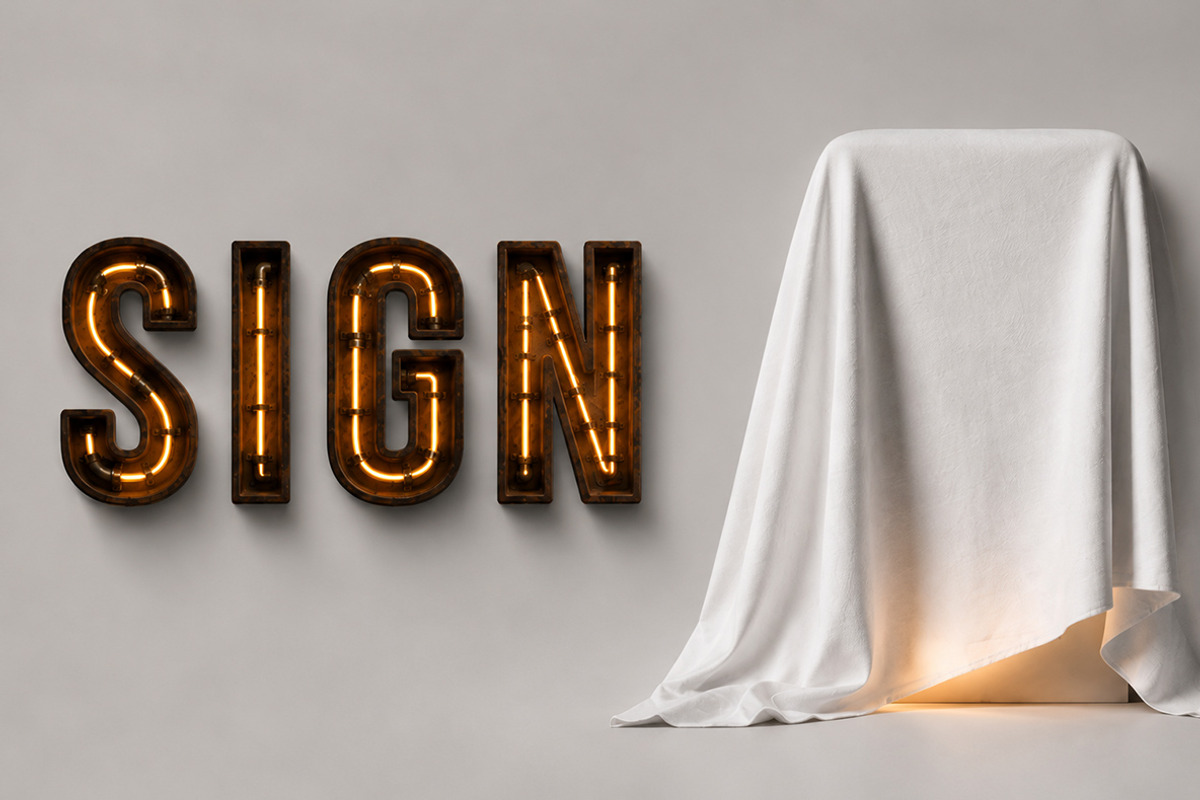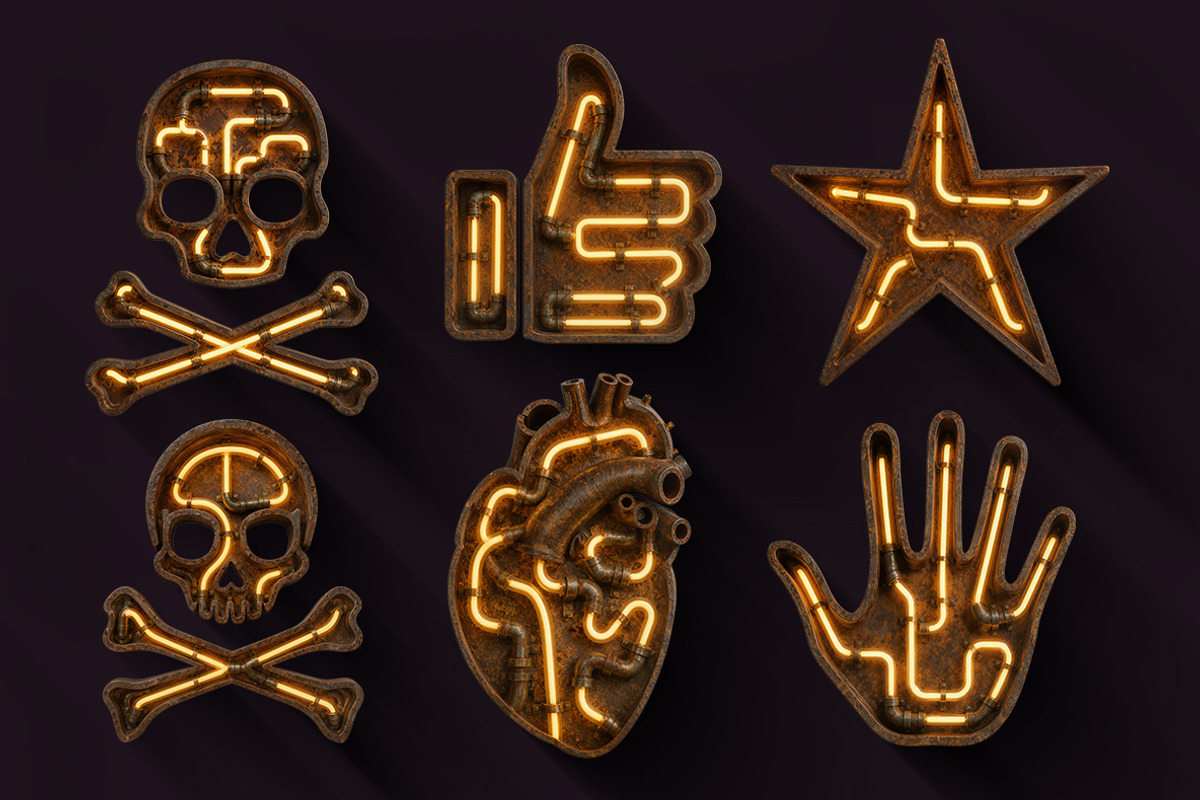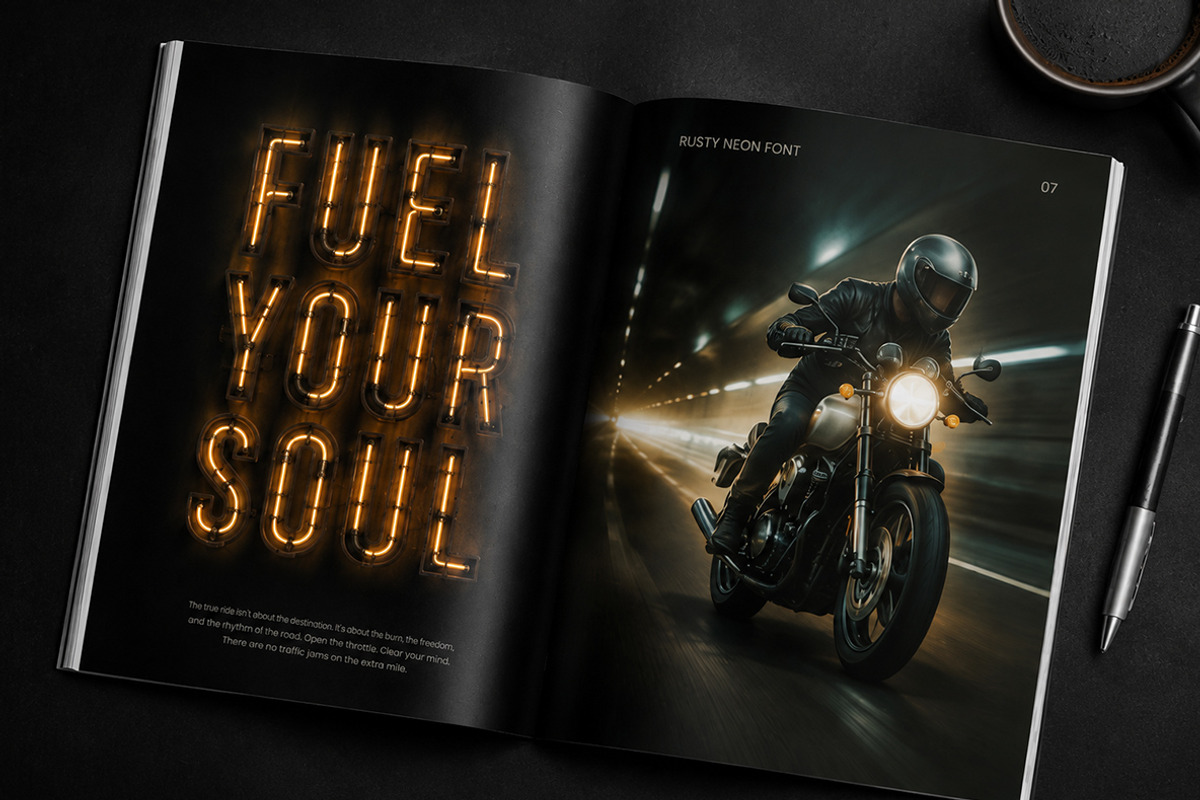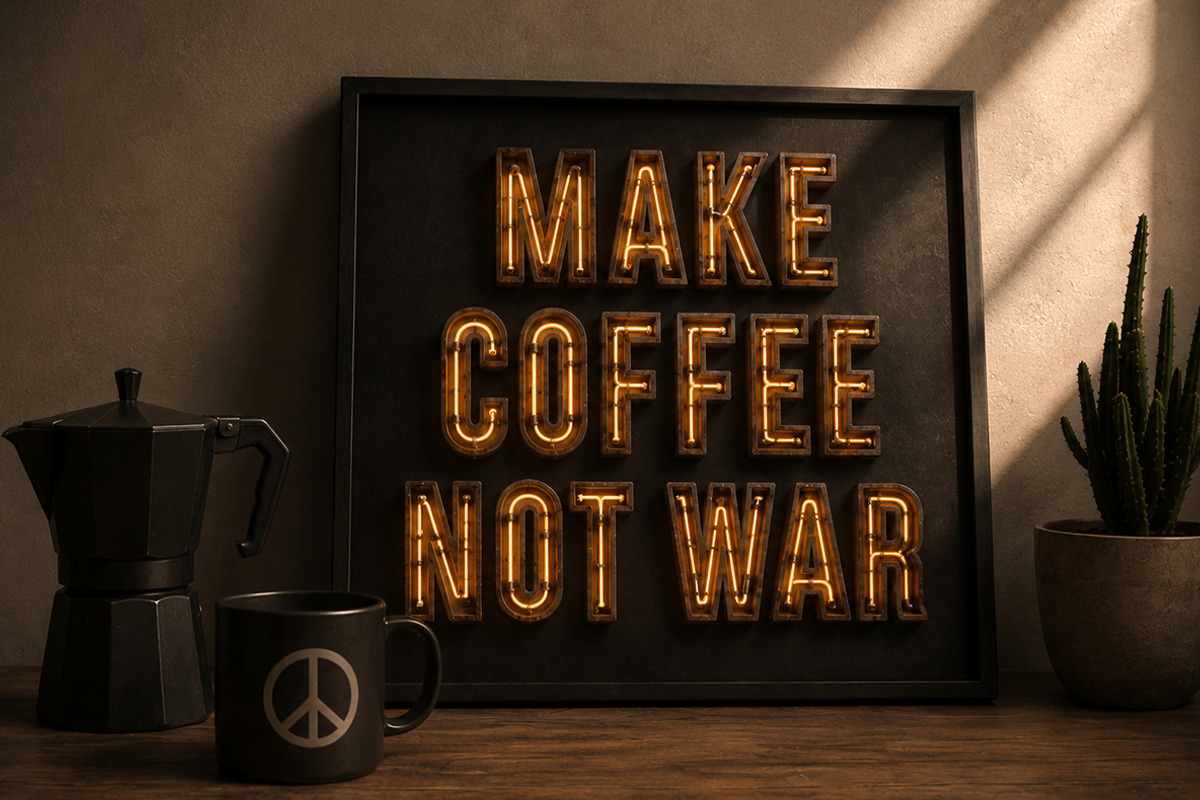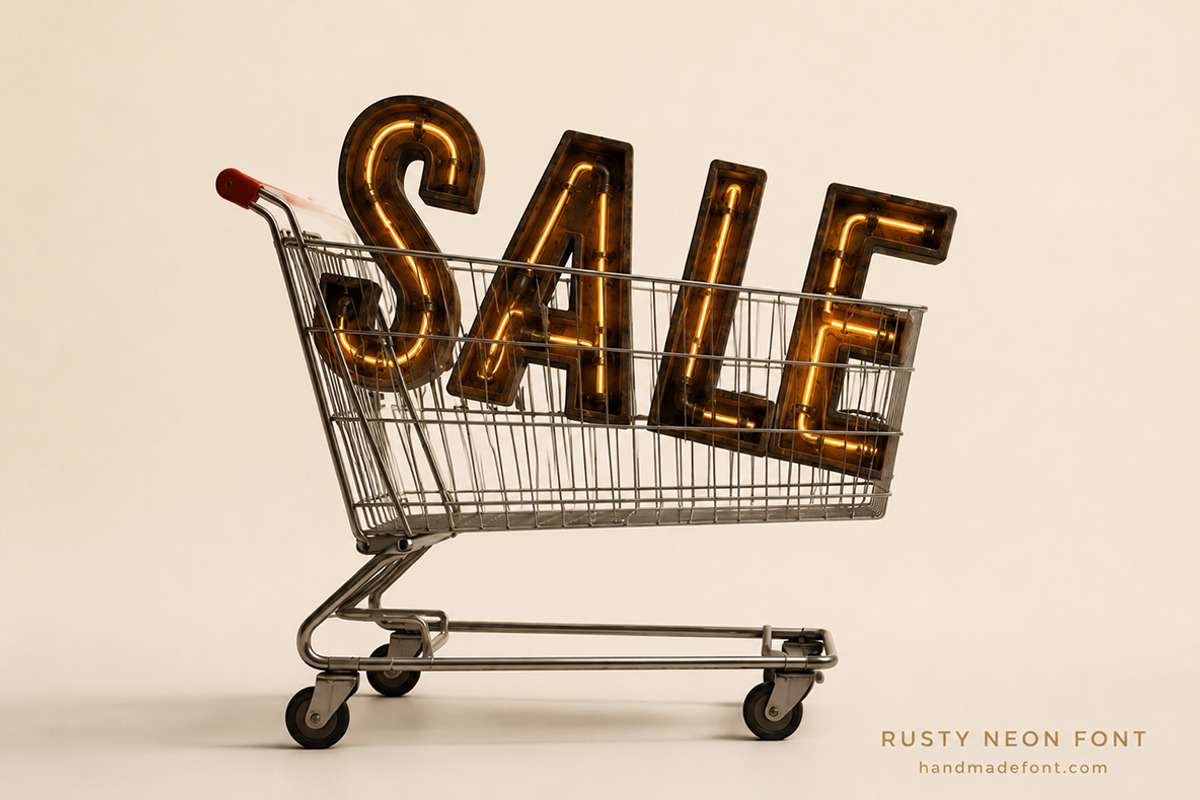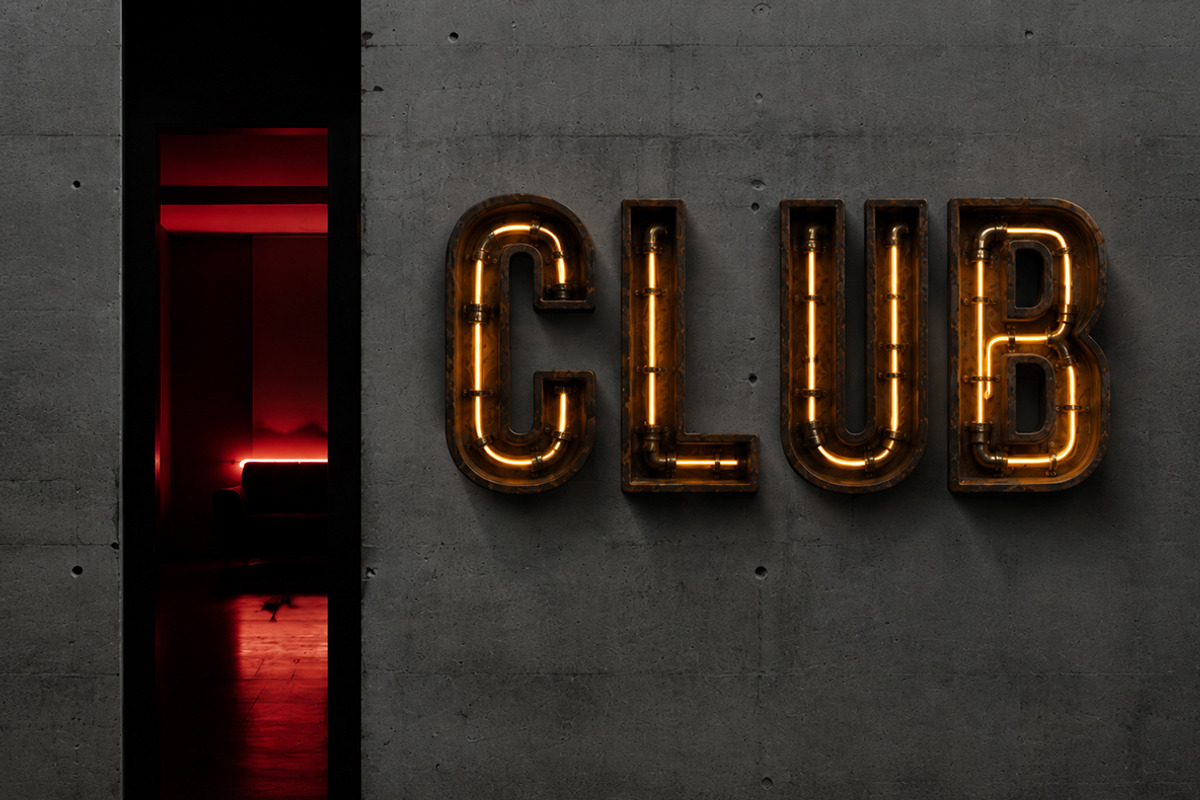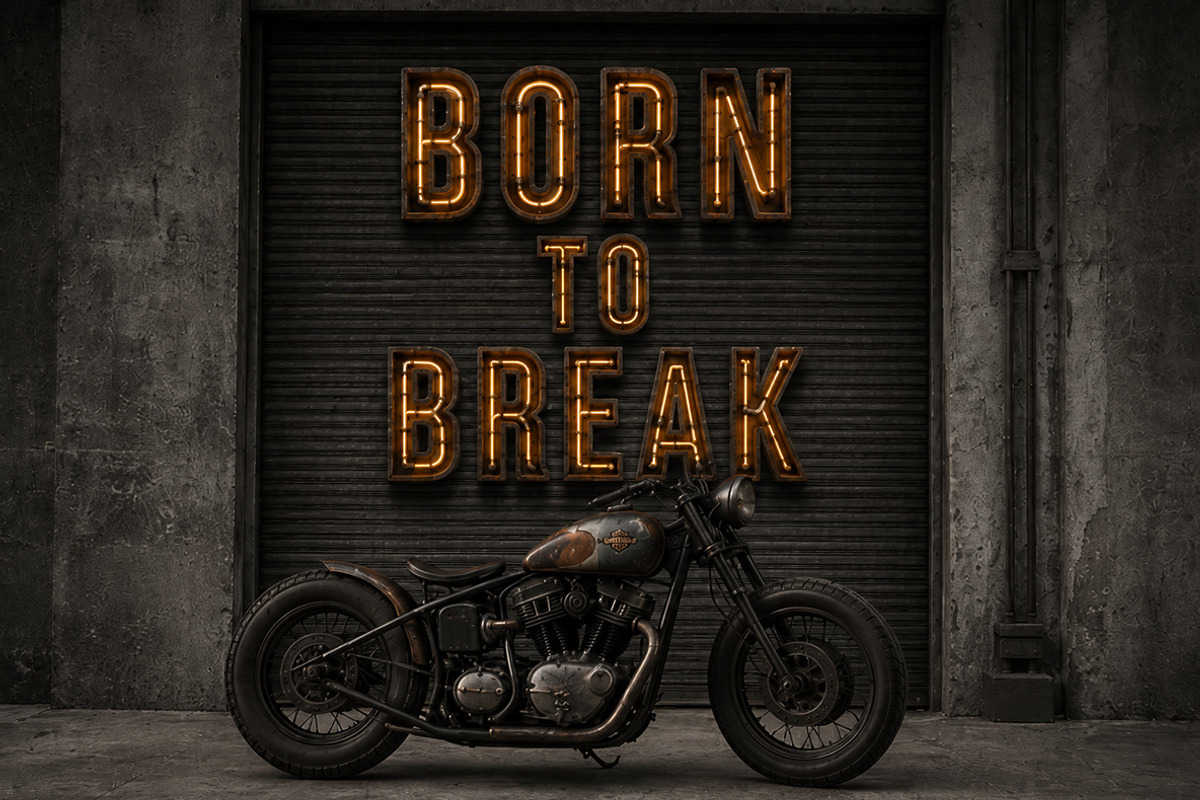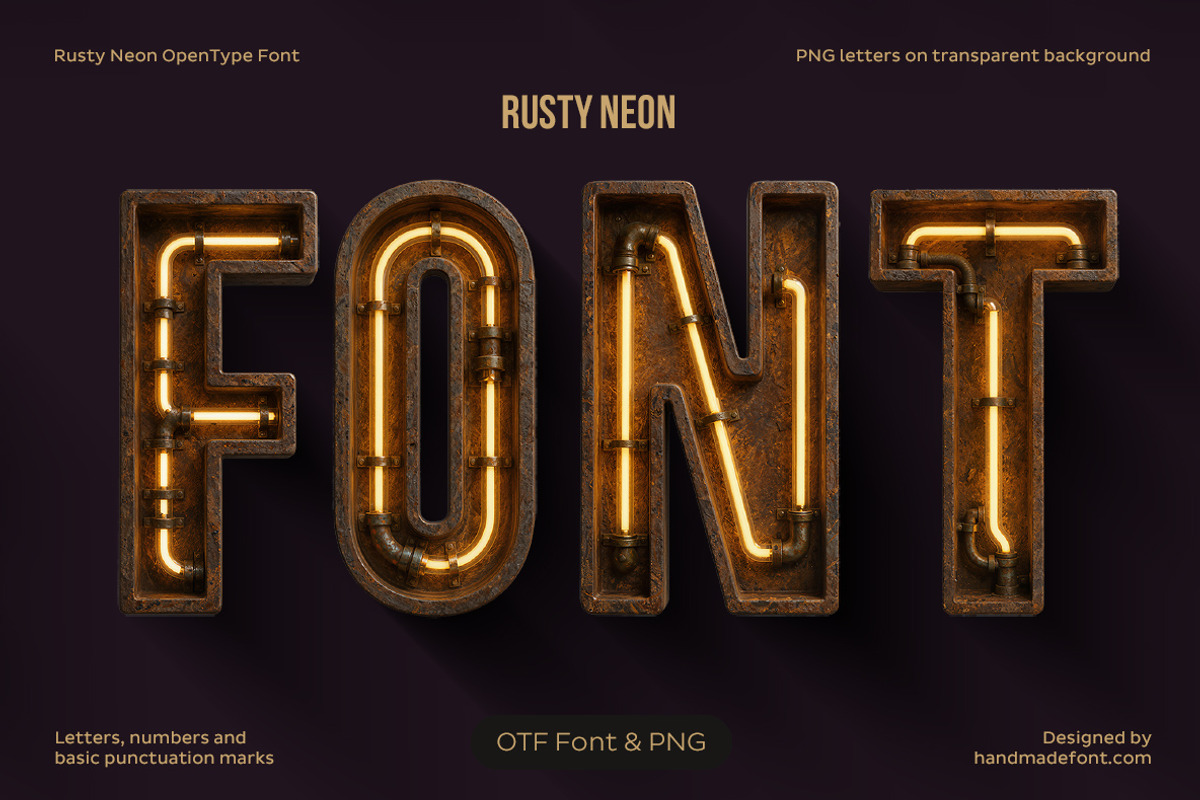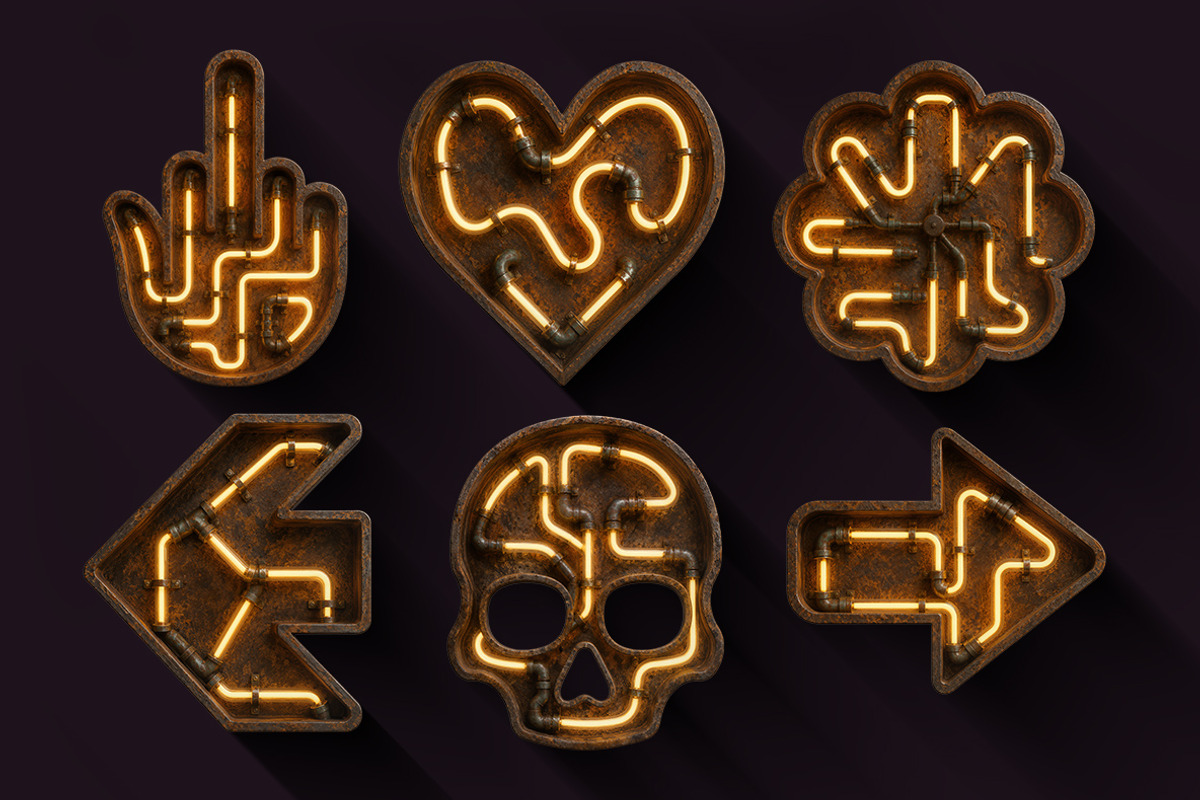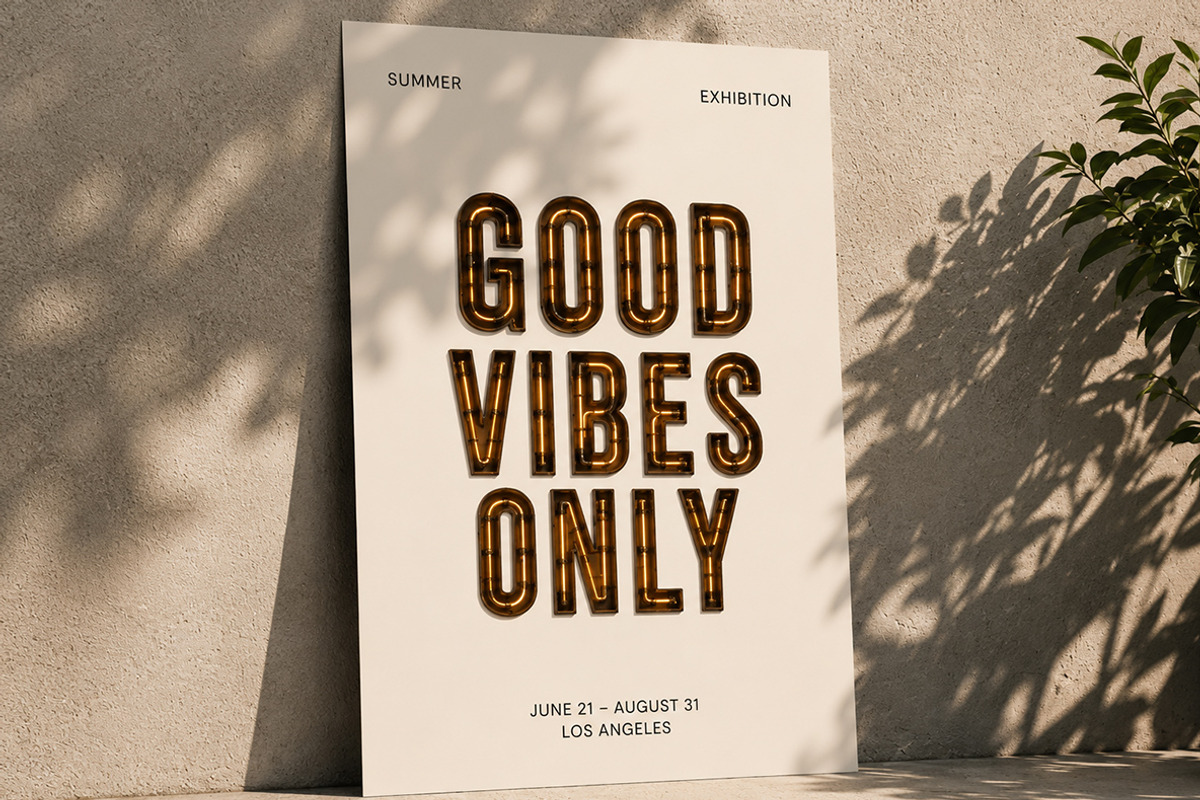
Rusty Neon Font
Rusty Neon Font is a handcrafted typeface that combines the industrial charm of aged metal with the warm glow of vintage neon lighting. Each character features realistic rusty textures, detailed pipe construction, and illuminated tubes, making every letter look like an authentic retro sign. The package includes an OpenType (OTF) font for easy typing and a complete set of high-resolution PNG letters with transparent backgrounds for custom compositions. Perfect for branding, posters, logos, restaurant signage, music events, apparel, packaging, social media graphics, and creative advertising, Rusty Neon Font adds a bold, nostalgic atmosphere to any design project with effortless style.
Letters : A B C D E F G H I J K L M N O P Q R S T U V W X Y Z
Numbers : 0 1 2 3 4 5 6 7 8 9
Others : ! ? - . ' $ € % & #